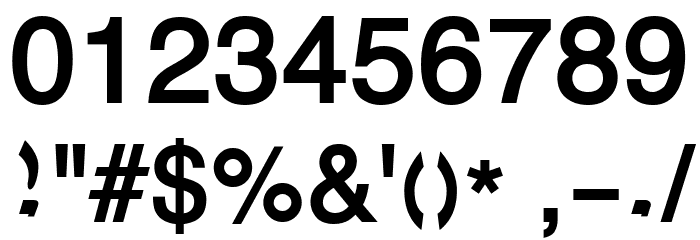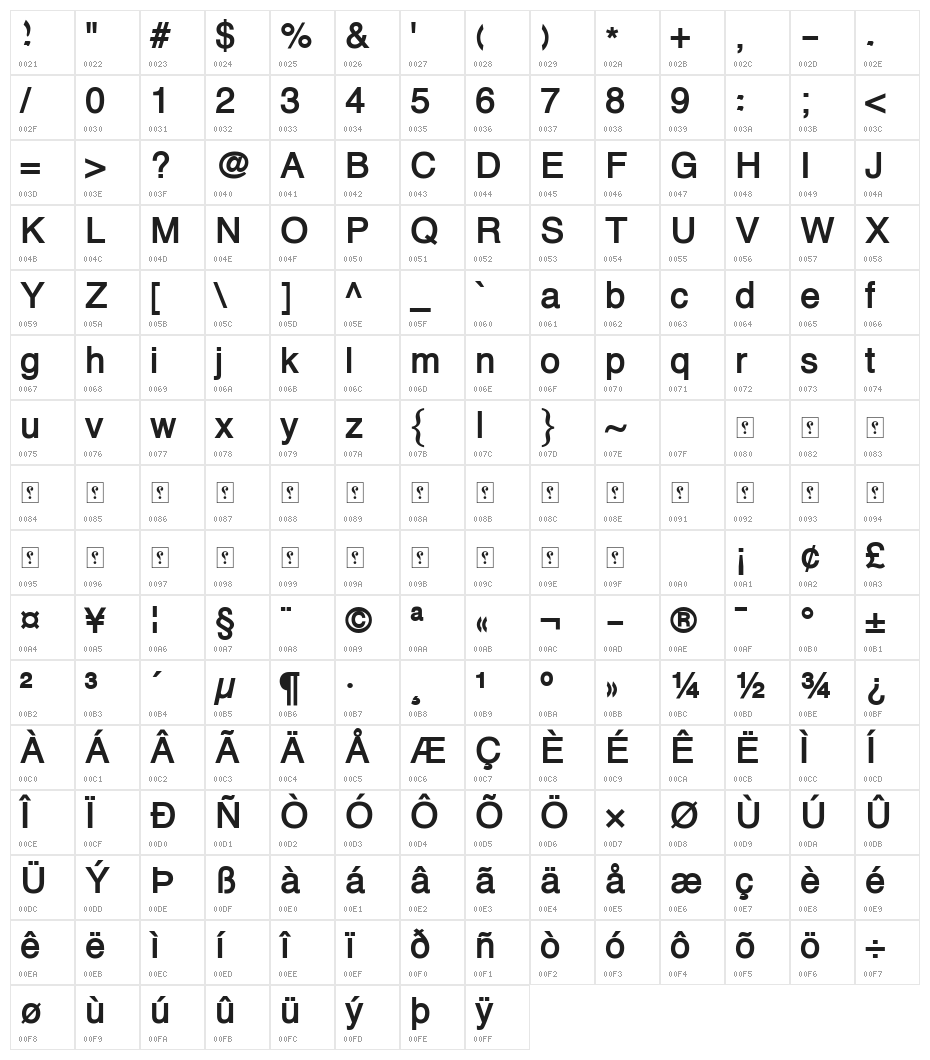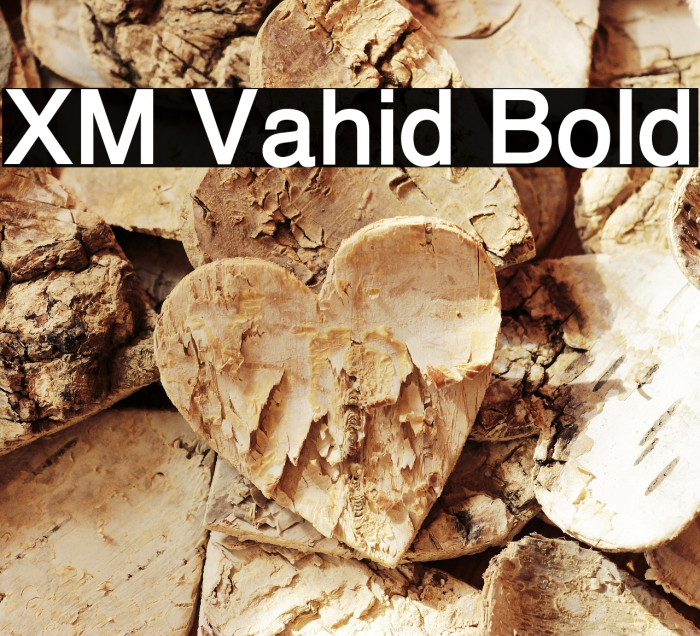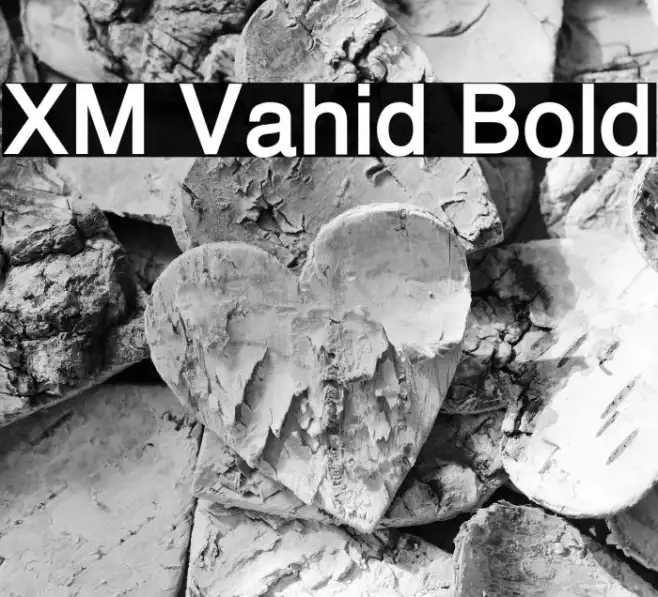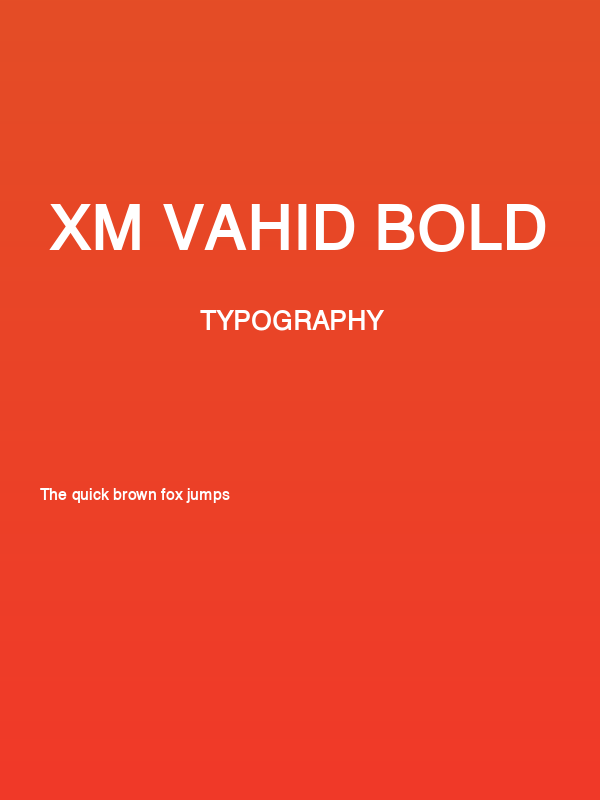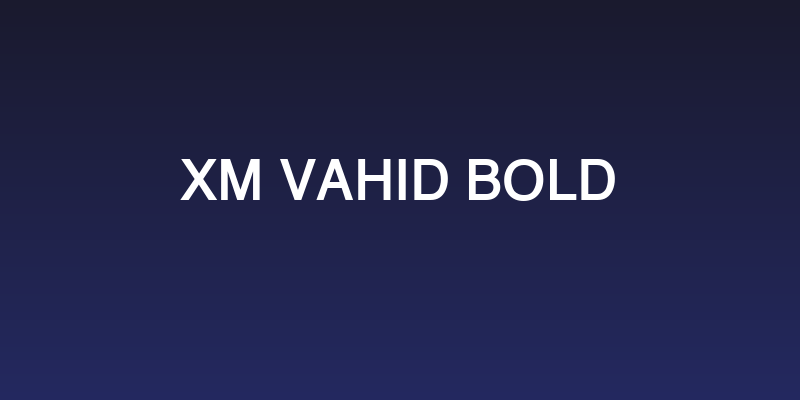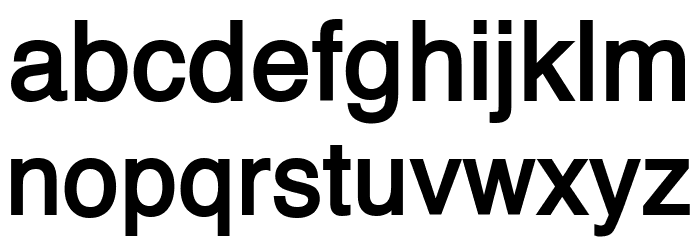
XM Vahid Bold Font
XM Vahid Bold Description
This typeface features a bold and modern sans-serif design, characterized by clean lines and a strong presence. The uppercase and lowercase letters are well-proportioned, with a consistent stroke width that conveys a sense of stability and professionalism. The numerals are clear and easily distinguishable, making them suitable for a variety of applications. Special characters are included, maintaining the font's cohesive style. The overall appearance is sleek and contemporary, making it versatile for both digital and print media.